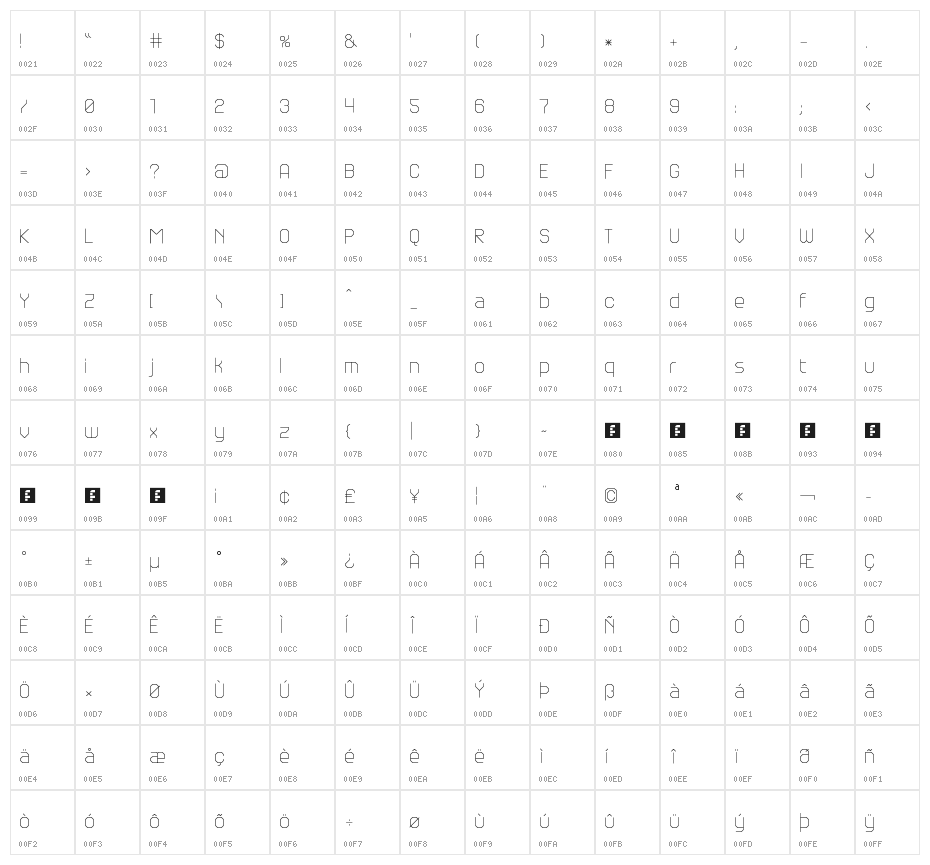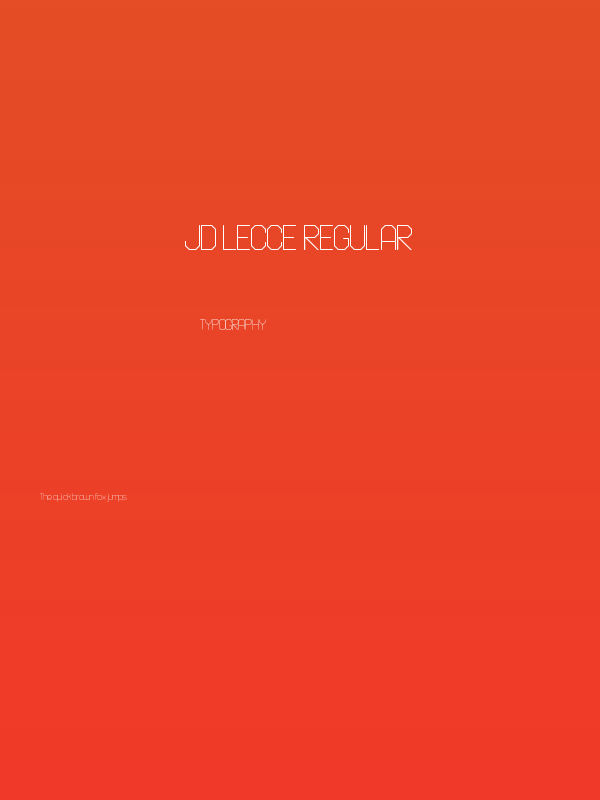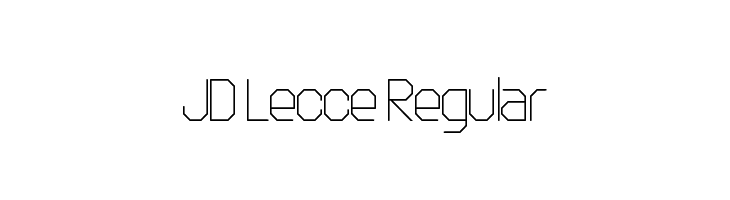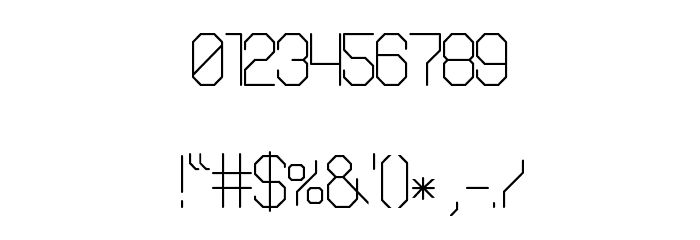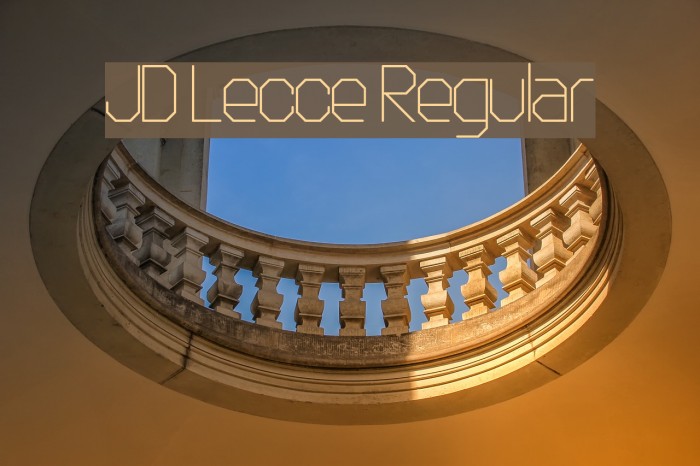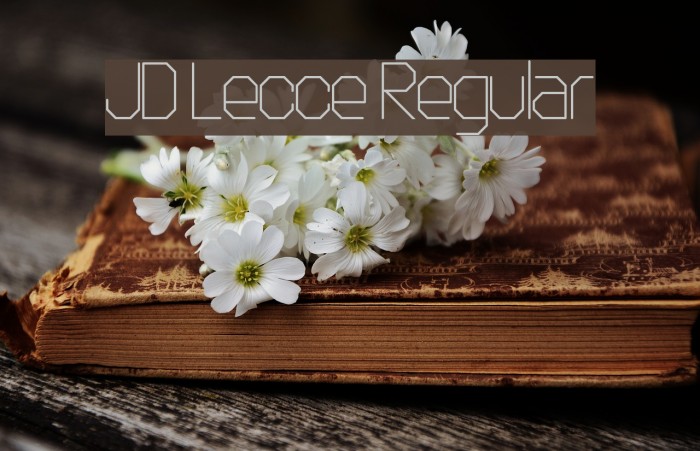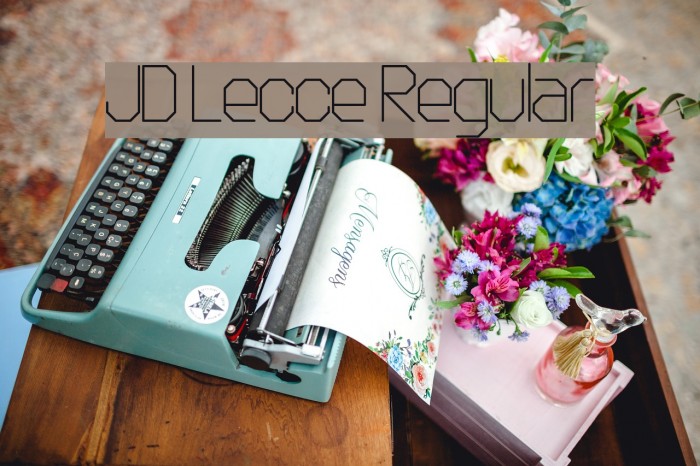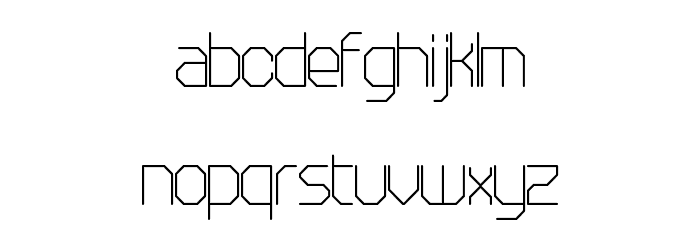
JD Lecce Regular Font
JD Lecce Regular Description
This font features a geometric and angular design, characterized by its distinct, sharp edges and linear strokes. Each character is crafted with precision, creating a futuristic and technical appearance. The uppercase and lowercase letters maintain a consistent style, with a uniform height and width that enhances readability. The numerals and special characters follow the same design principles, ensuring a cohesive look across all elements. The font's structure is reminiscent of digital or technological themes, making it suitable for modern and innovative design projects.
| Proposed Projects | Ideal for technology branding, digital interfaces, modern posters, and innovative product packaging. |